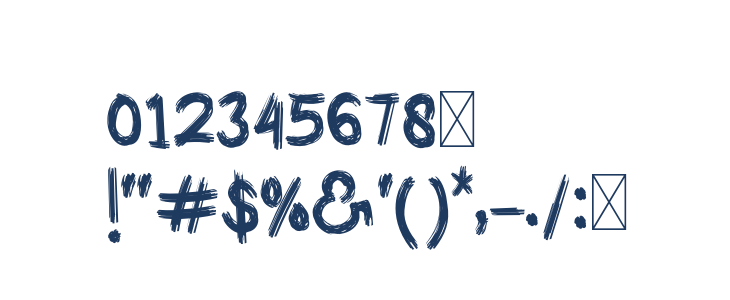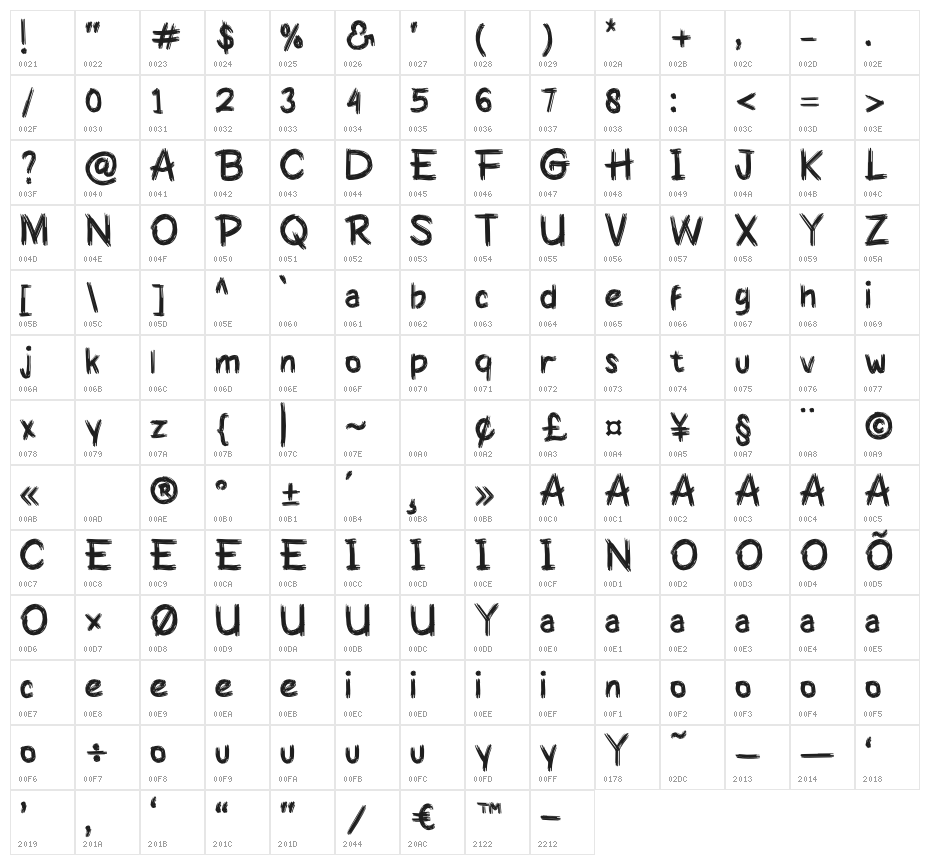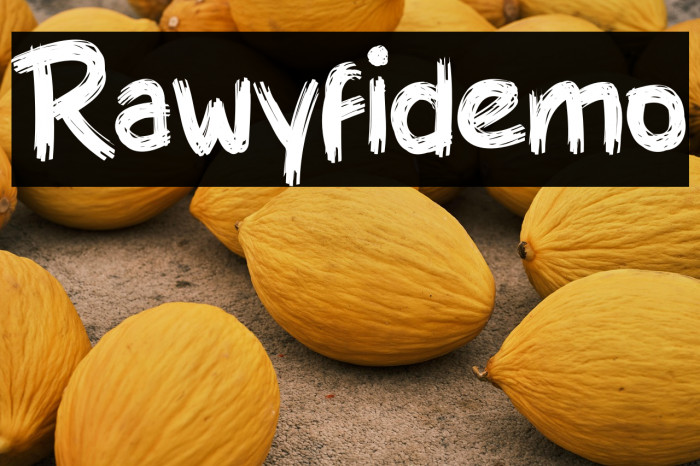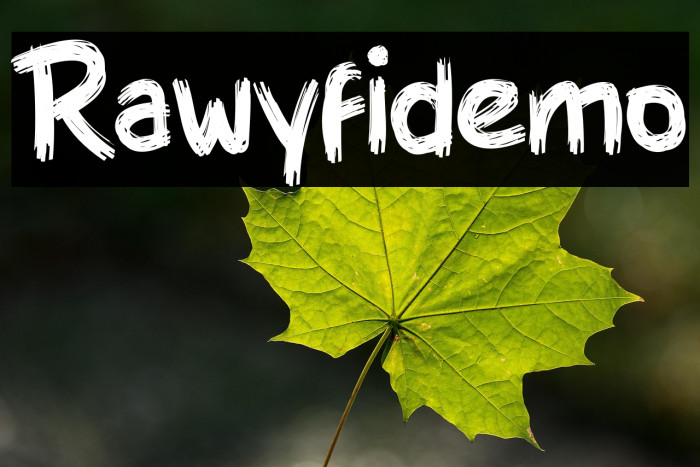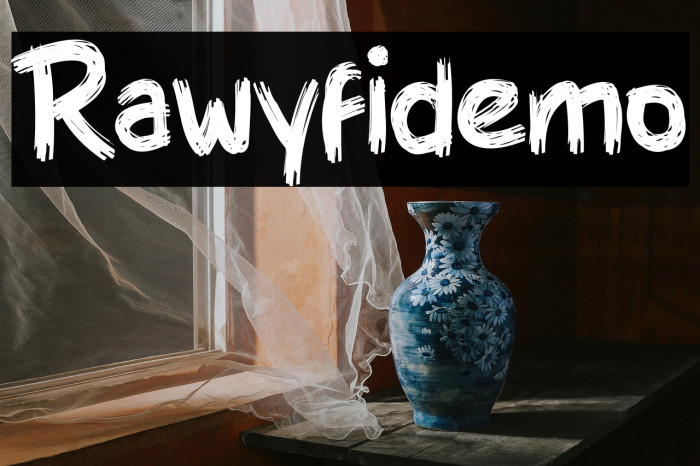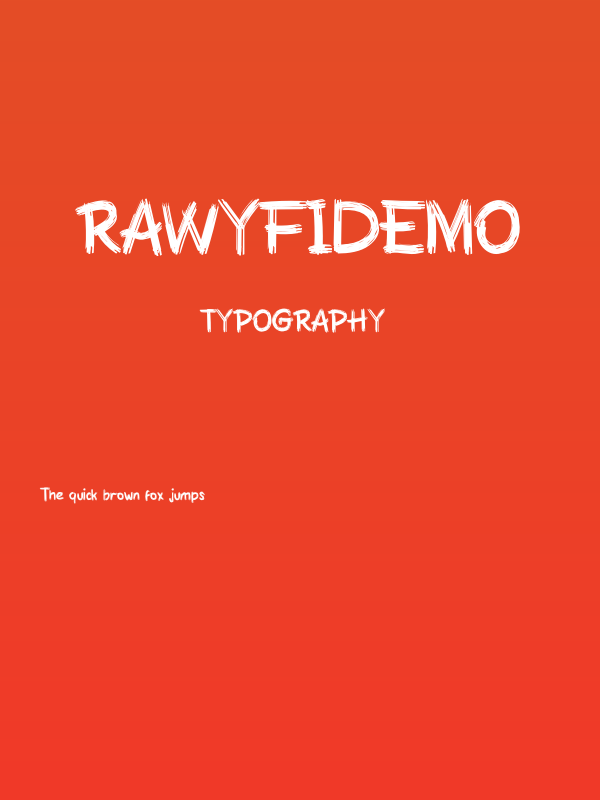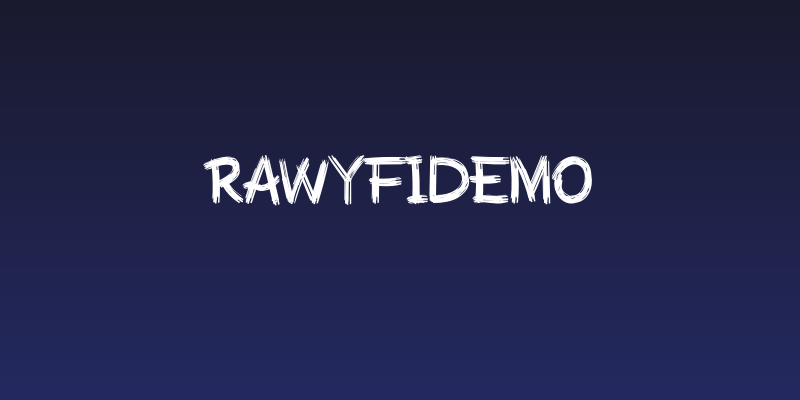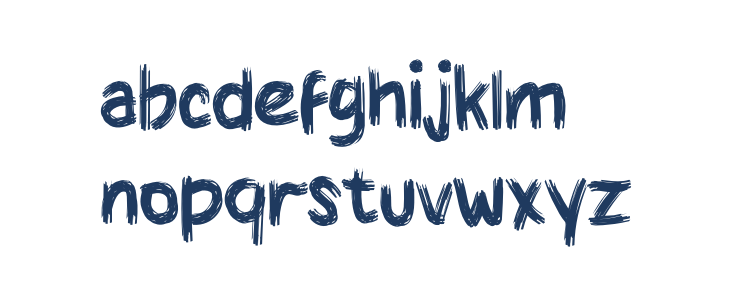
Rawyfidemo Font
Rawyfidemo Description
This font exhibits a bold, expressive style with a hand-drawn appearance. The strokes are uneven and dynamic, giving it a raw, energetic feel. Each character is crafted with a sense of movement, as if sketched with a brush or marker. The uppercase and lowercase letters maintain a consistent style, with thick, bold lines and a slightly irregular form. Numbers and special characters follow the same aesthetic, ensuring a cohesive look across all glyphs. The font's unique, artistic flair makes it stand out, ideal for projects that require a touch of creativity and individuality.